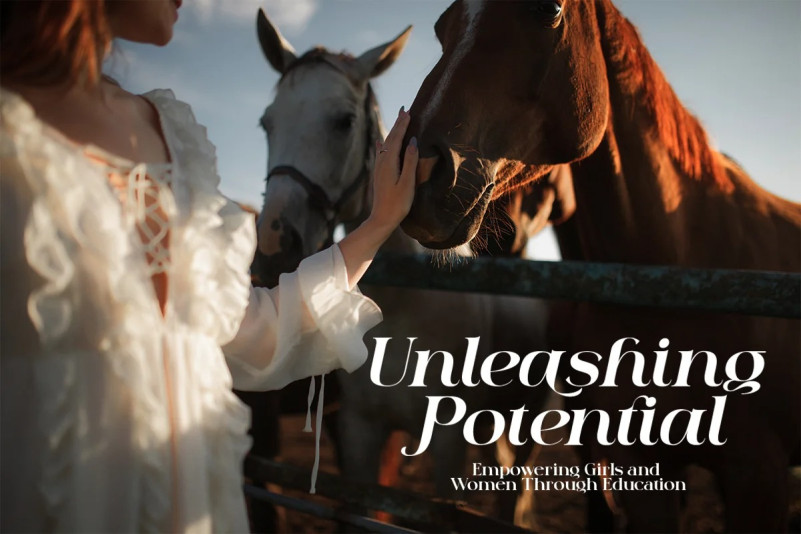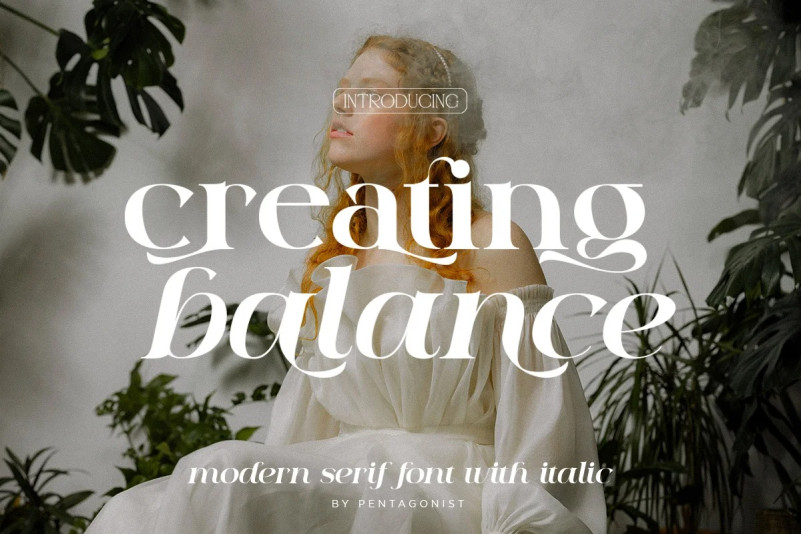
Creating Balance Font
Creating Balance Font is a modern serif font including regular and italic version. Suitable for any design needs : logo, branding, modern advertising design, logos, poster quote, book / cover Title, editorial design, website / blog, card, t-shirts,…